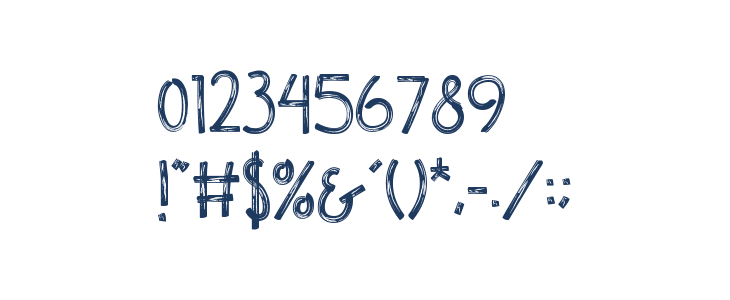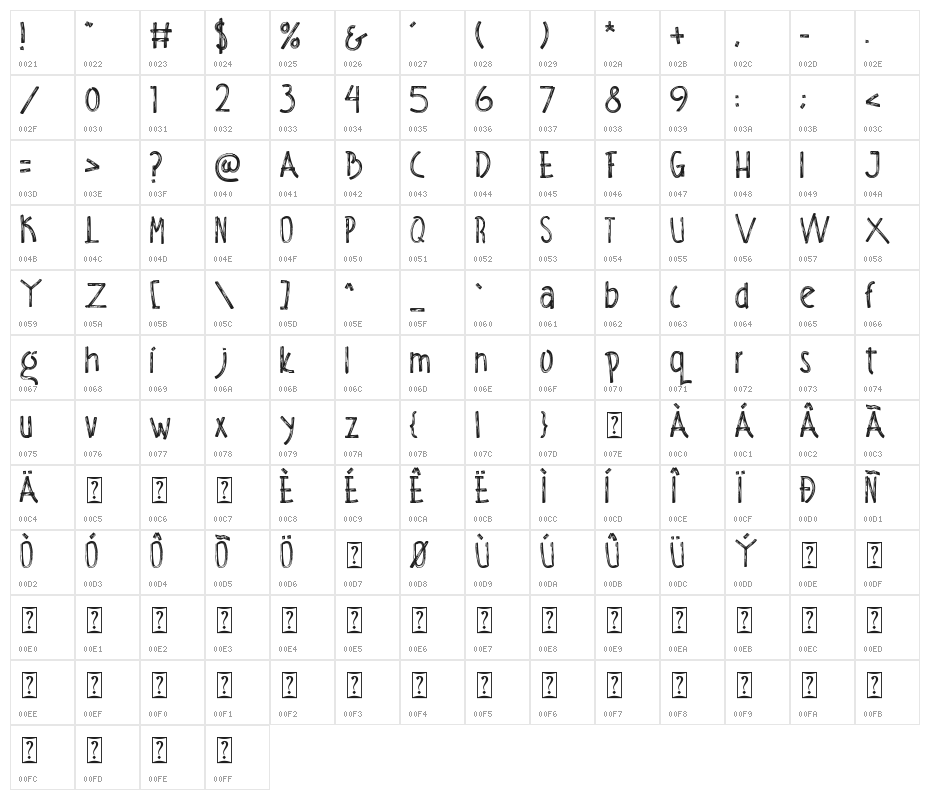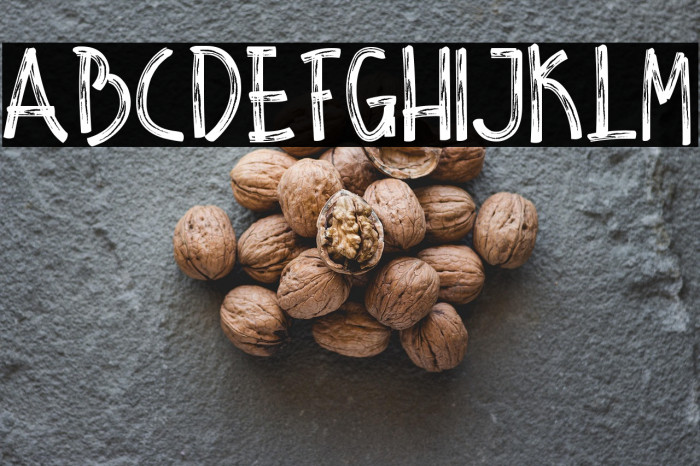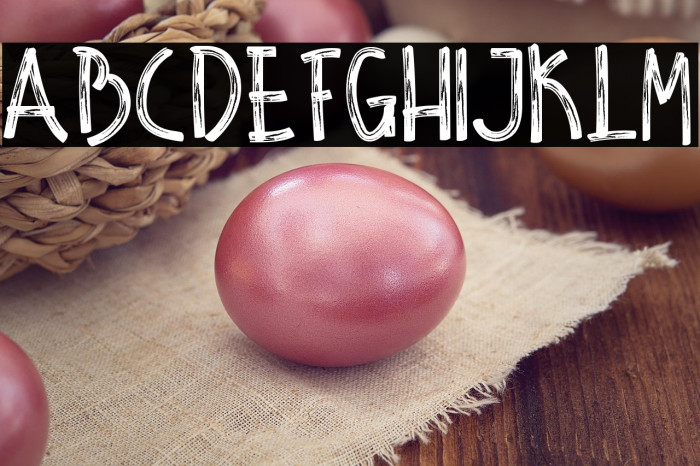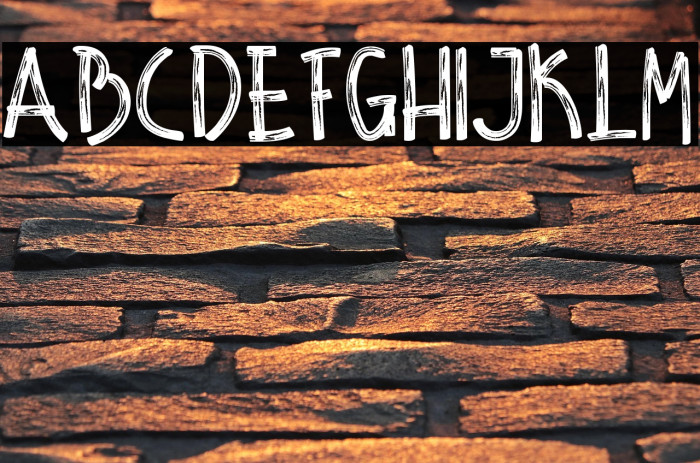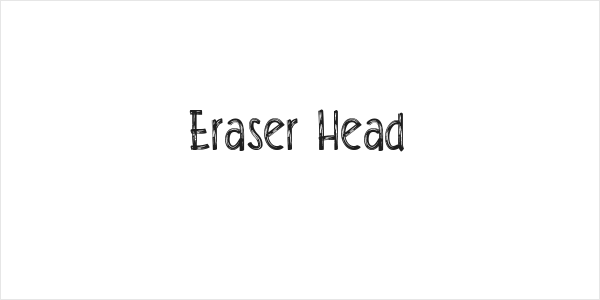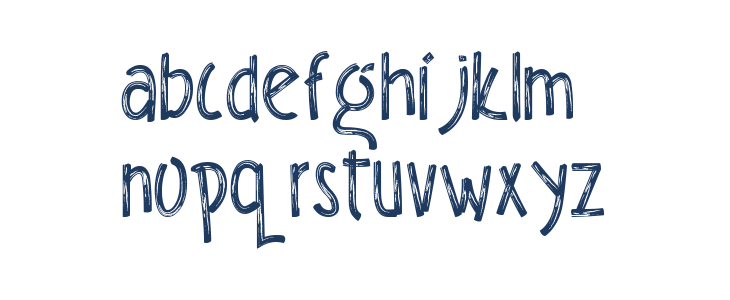
Eraser Head Font
Eraser Head Description
This font features a playful, hand-drawn style with a textured appearance that mimics the look of chalk or crayon on a rough surface. The letters are bold and slightly irregular, giving them a casual and approachable feel. Each character has a unique, sketch-like quality, with varying line thicknesses that add to the overall dynamic and lively appearance. The uppercase and lowercase letters maintain a consistent style, while the numbers and special characters complement the alphabet with similar artistic flair. This font is perfect for projects that require a fun and informal touch.